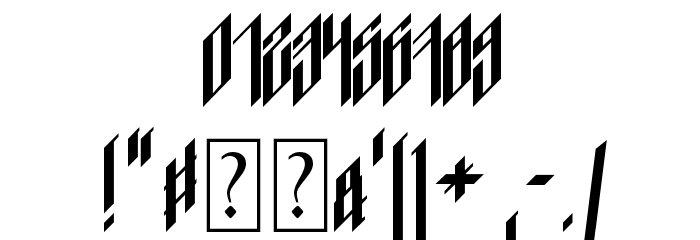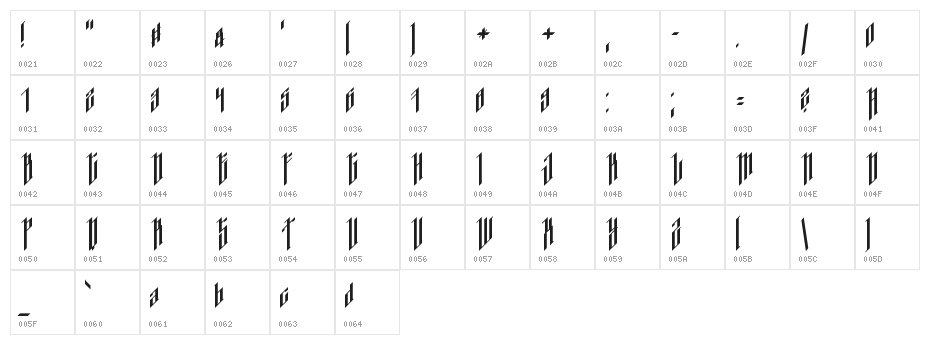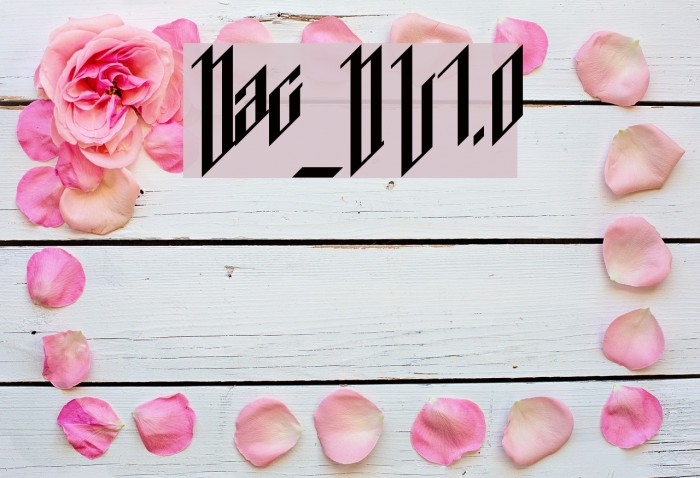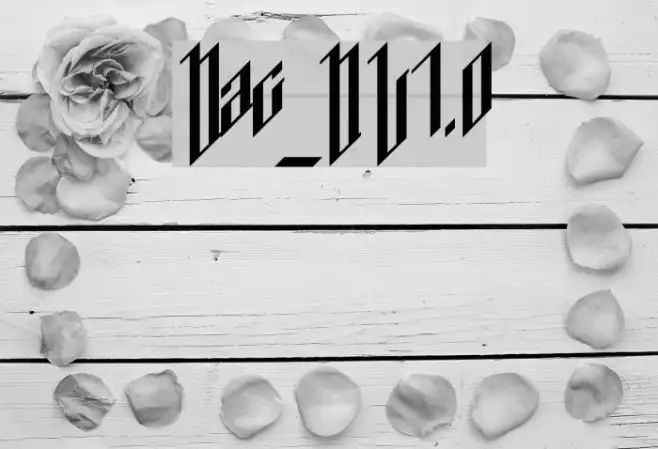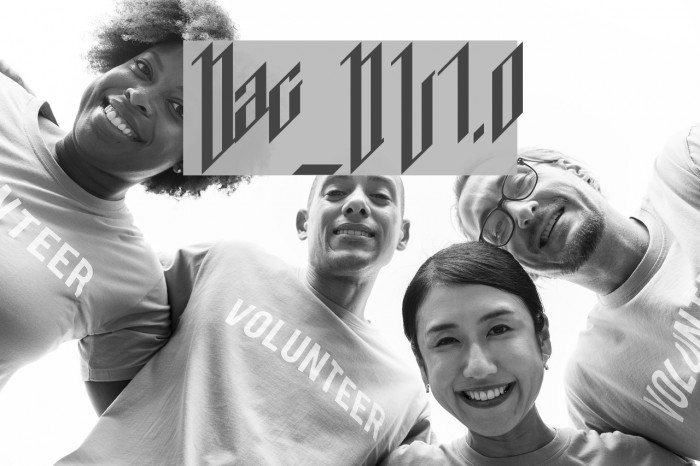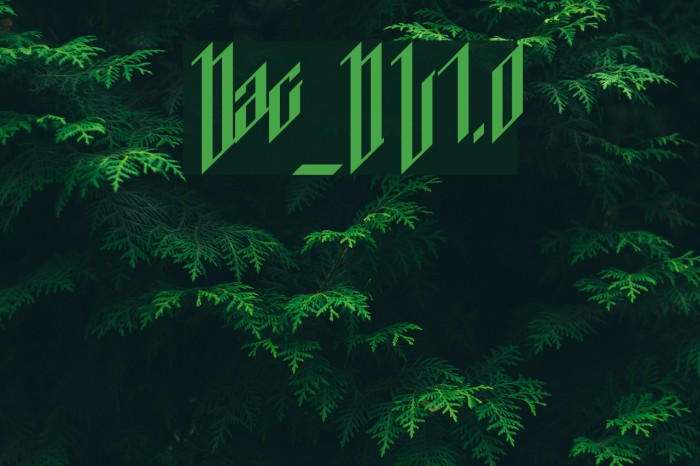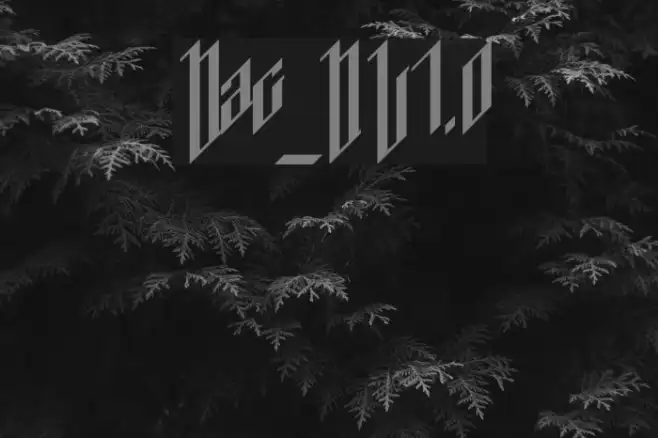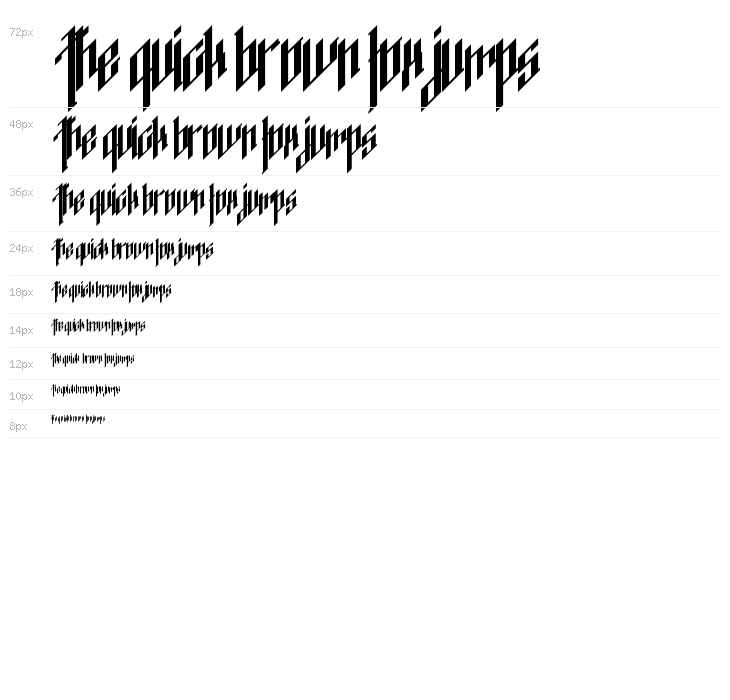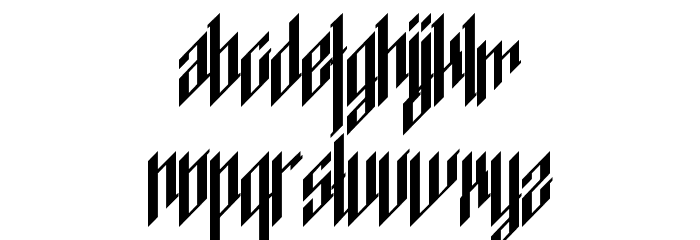
Dancing_DL1.0 Font
Dancing_DL1.0 Description
This font exhibits a striking and bold blackletter style, characterized by its sharp, angular lines and dramatic presence. The uppercase letters are tall and narrow, with pointed serifs and a distinct medieval flair. The lowercase letters maintain the same angularity, providing a cohesive look throughout. Numbers and special characters are designed to match the overall aesthetic, ensuring consistency. The font's high contrast between thick and thin strokes adds to its dramatic and eye-catching appearance, making it ideal for impactful designs.
| Proposed Projects | Ideal for projects requiring a dramatic and historical touch, such as event posters, book covers for fantasy or historical genres, and branding for vintage-themed products. |